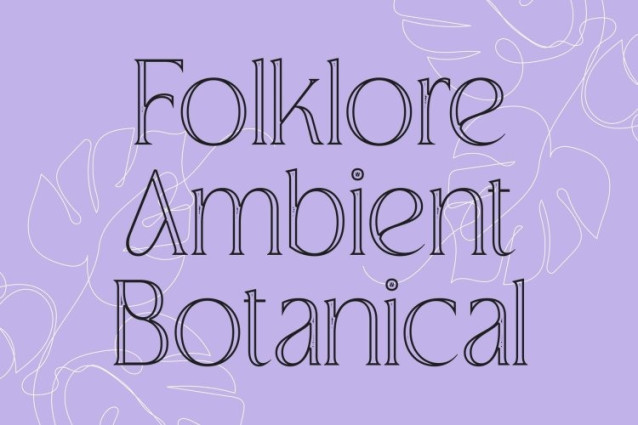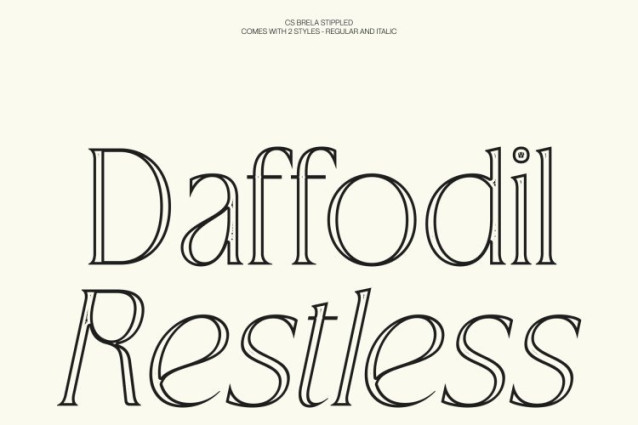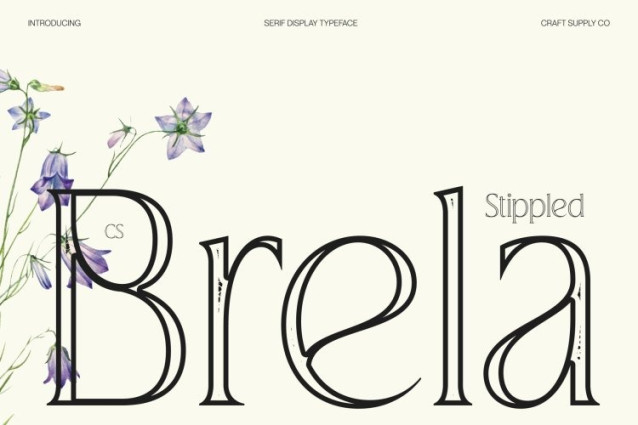
CS Brela Stippled Font
CS Brela Stippled Font – This is an elegant serif font designed with simple, well-balanced letterforms that emphasize clarity and refinement. Its clean structure ensures excellent legibility, while subtle design nuances give it a relaxed and approachable personality. Enhanced with a delicate stippled texture, the font gains added depth and a handcrafted engraved feel.
Playful Ligatures with Artistic Texture
One of the defining features of this font is its playful ligatures. These carefully crafted connections add character and charm to the typography, bringing a sense of movement and creativity to the text. The stippled effect enriches these details with subtle visual texture, enhancing the rhythm and making the typography feel more expressive while maintaining readability.
Simple Forms with Refined Elegance
The strength of this font lies in its simplicity. Clean, straightforward letterforms provide a timeless foundation, while refined serif details and the soft stippled texture elevate the overall appearance. This balance between simplicity, texture, and sophistication makes the font versatile and easy to pair with both minimal and decorative design elements.
Perfect for Fashion and Luxury Branding
This is ideal for fashion branding, elegant social media designs, logos, and posters. Its graceful serif style combined with the artistic stippled texture creates a fashionable and refined tone, helping brands communicate elegance, creativity, and confidence with a distinctive visual character.